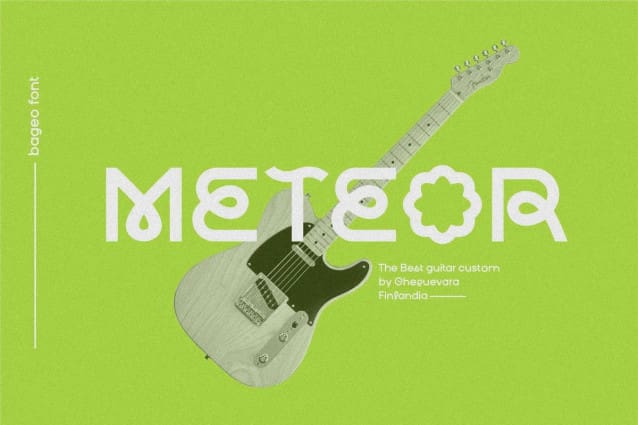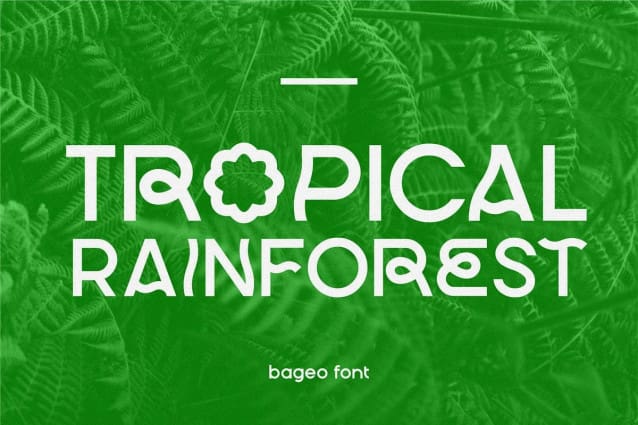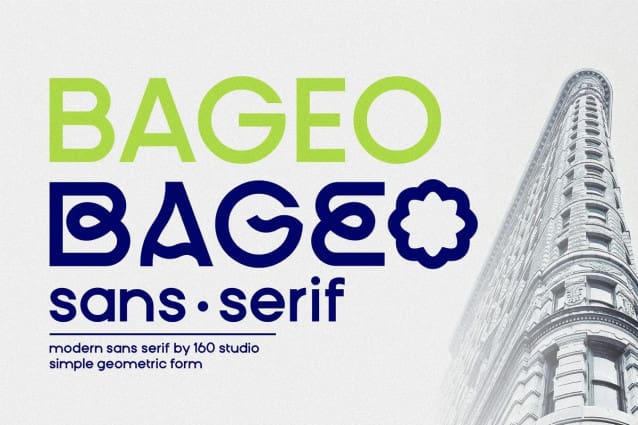
Bageo Font
Bageo Font is a versatile font celebrated for its clean and sleek design. The geometric lowercase letters contribute to a modern and polished aesthetic, emphasizing a clean feel. The overall typeface is meticulously crafted with geometric precision, promoting order and alignment between letters. Best suited for logos, headlines, and titles, Bageo adds a touch of contemporary sophistication to your design.